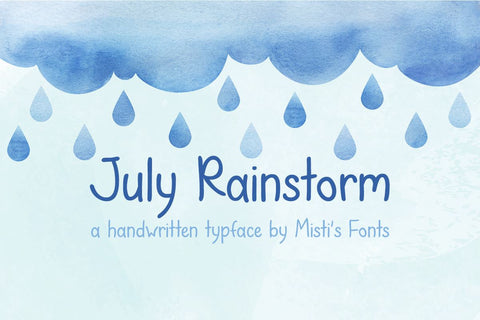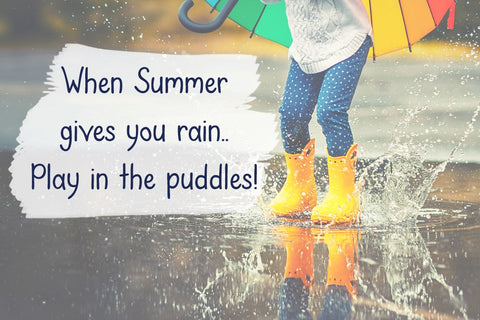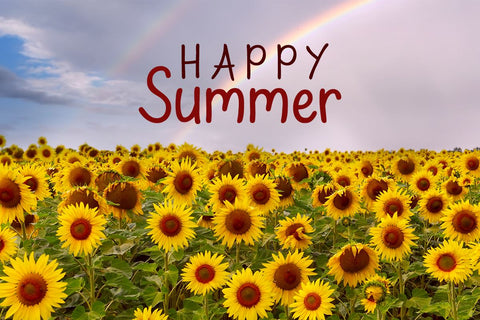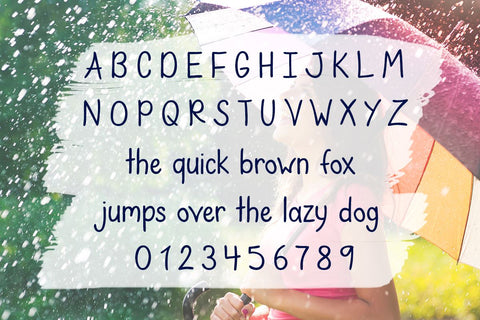
July Rainstorm
July Rainstorm is a stunning handwritten font that captures the essence of a summer rainstorm. The flowing curves and irregular edges of each letter make for a unique and organic feel. The font is perfect for adding a personal touch to your designs, from wedding invitations to social media graphics. The subtle variations in line weight create a natural, authentic look that will make your text stand out. Whether you’re looking to add a touch of whimsy or a bit of elegance to your project, July Rainstorm is the perfect choice. Try it today and add a little bit of summer rain to your designs!